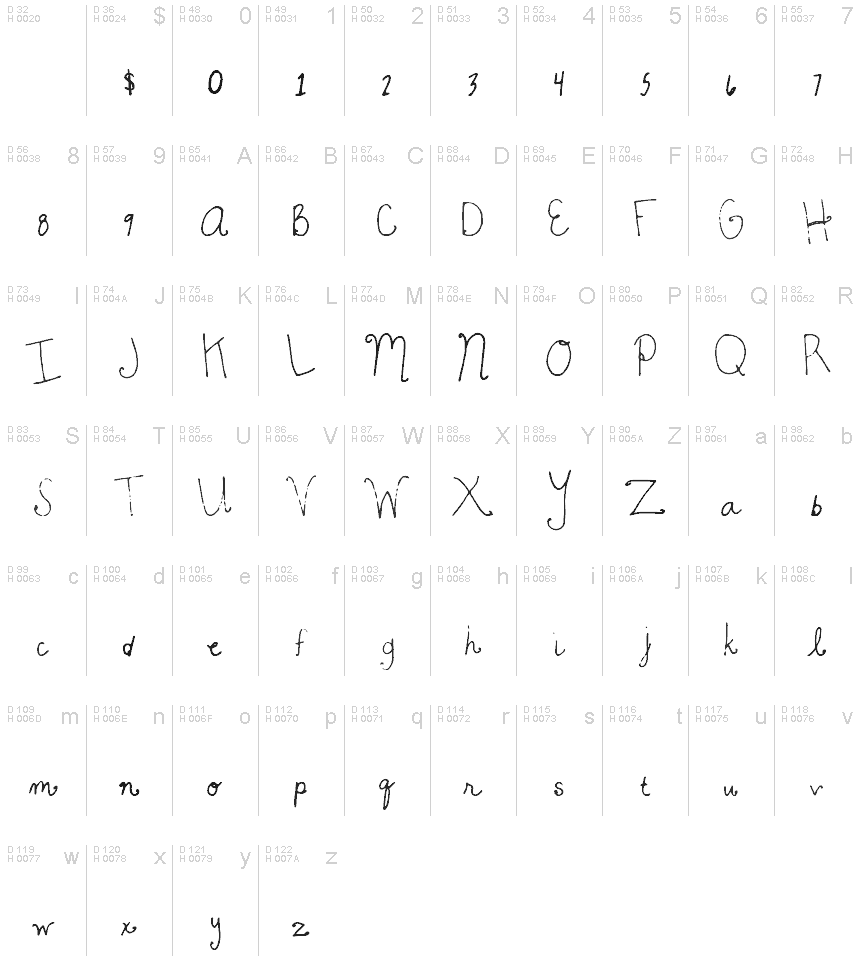
MagicBeauty
Magic Beauty is a captivating handwritten font that exudes a sense of elegance and charm. Crafted by Xerographer Fonts' designer Max Infeld, this font boasts a delicate, flowing script that seamlessly combines both traditional and modern elements.
The organic, calligraphic strokes lend a sense of artistry and individuality, making it an ideal choice for a range of design applications, from personalized stationery and wedding invitations to branding and packaging.
Its versatility and distinctive style make Magic Beauty a compelling option for those seeking to add a touch of refinement and whimsy to their creative projects.